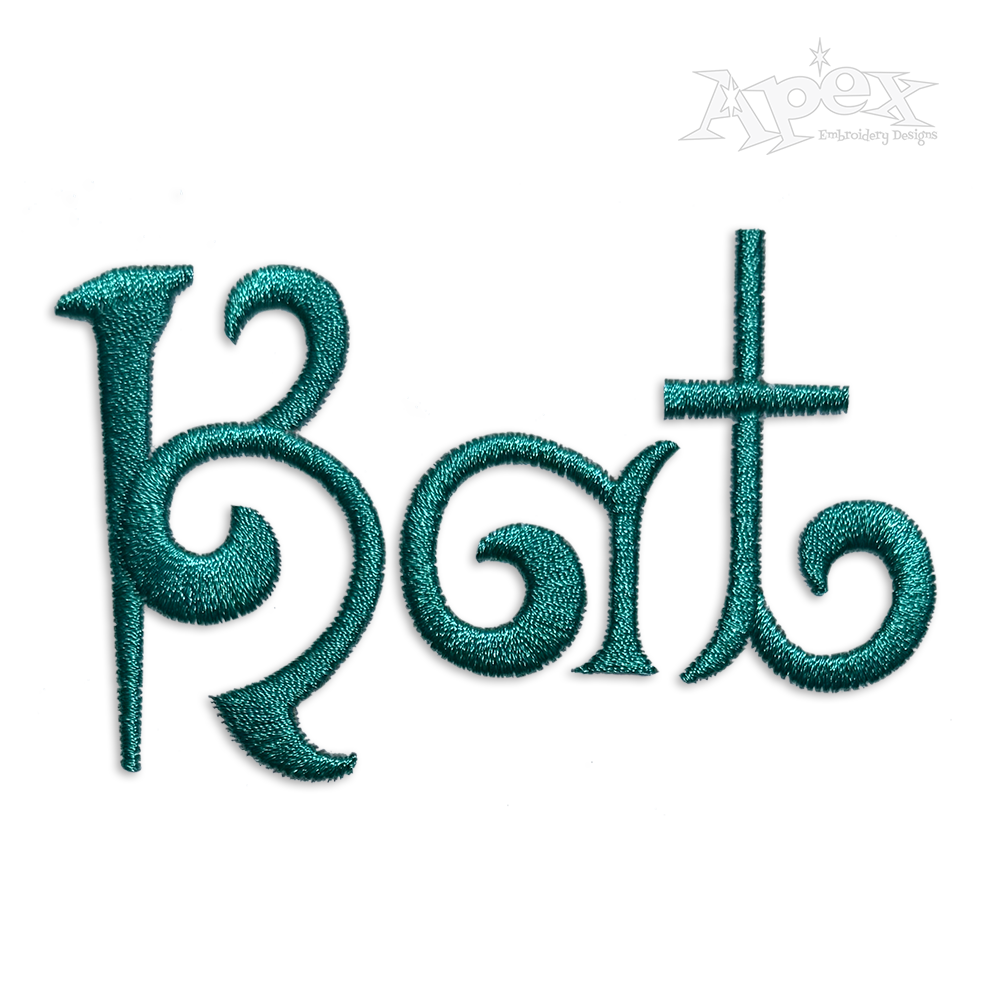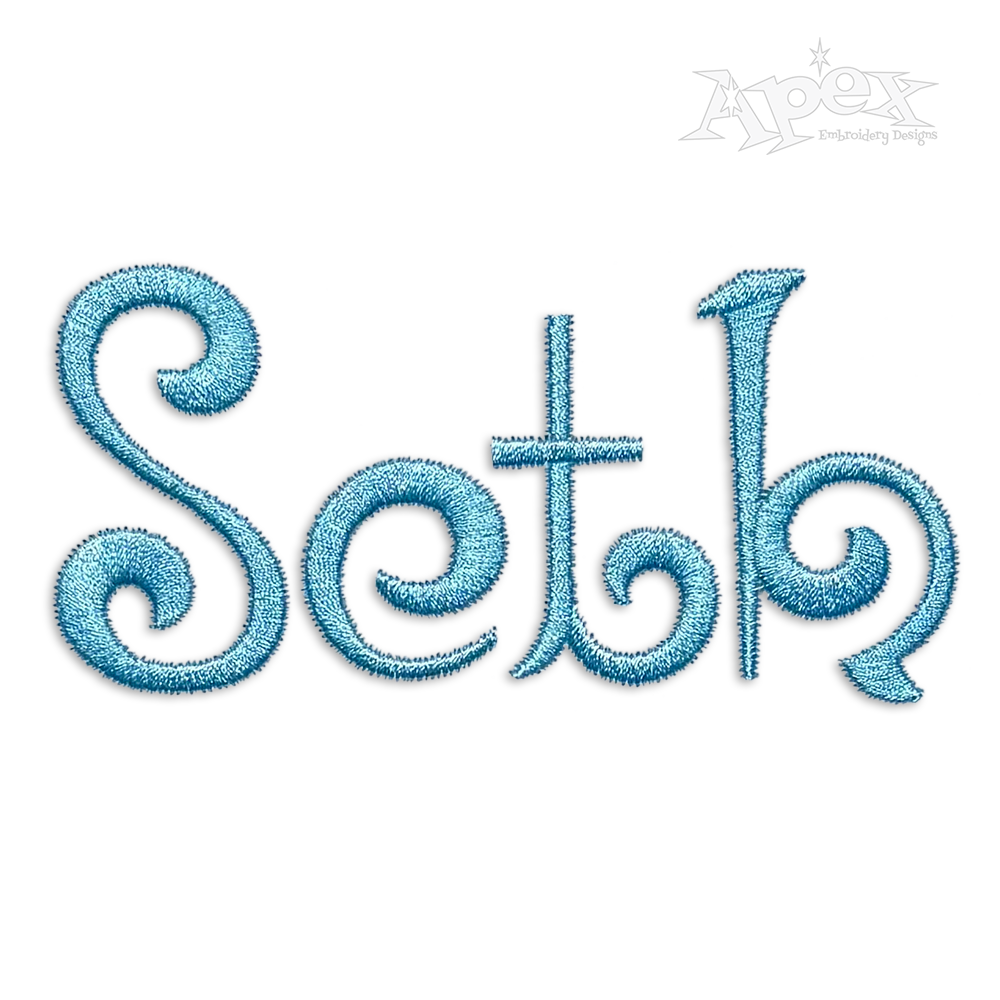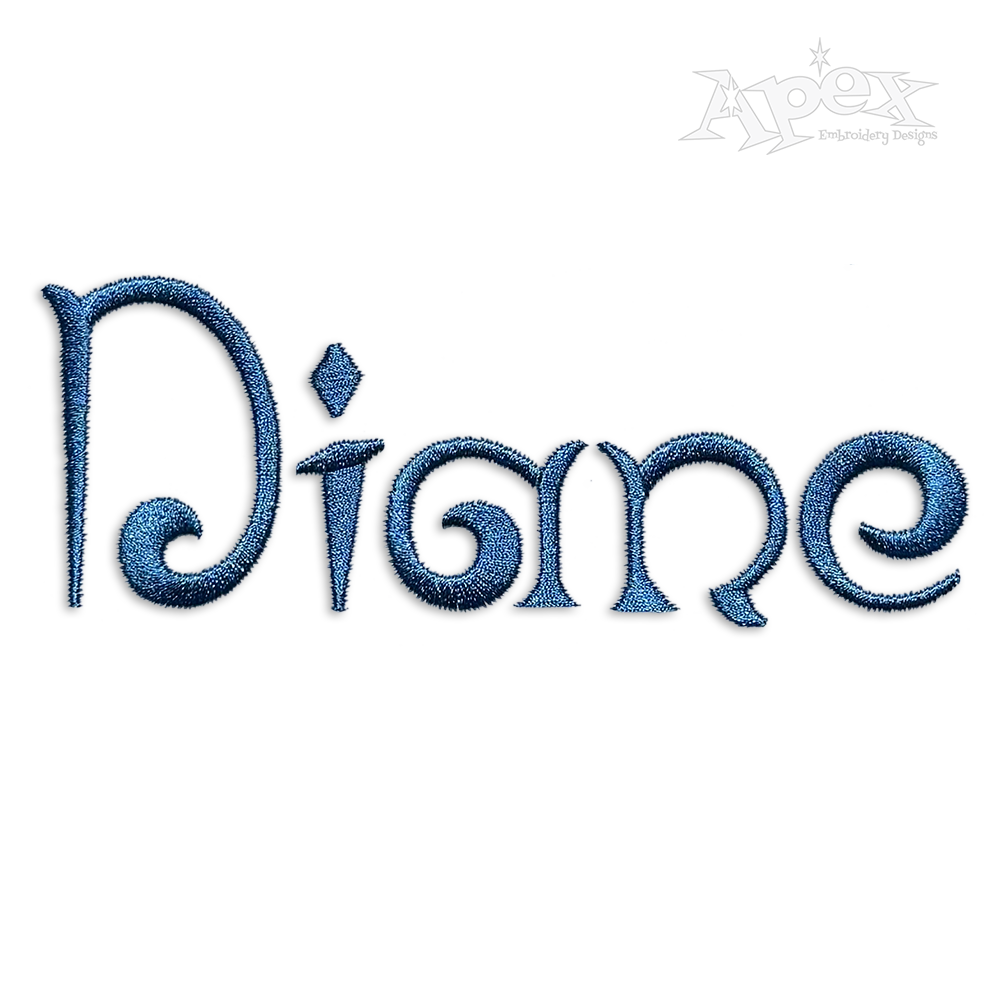
Waves Ocean Curlz Embroidery Font
Inspired by the rhythmic cadence of cresting tides and the joyful swirl of ocean seafoam, the Waves Ocean Curlz Embroidery Font infuses bespoke needlework with breezy coastal charm. When translating these spirited letterforms to stitches, our goal was to capture the fluid motion of rolling water while preserving crisp typographic legibility. Each character arcs, dips, and curls like an ocean swell, turning ordinary beach textiles, monogrammed linens, and personalized gifts into sun-drenched keepsakes alive with movement and artisan flair.
This collection has been digitized specifically for versatile machine embroidery projects, offering three thoughtfully scaled letter heights to accommodate both intimate accents and bold coastal statements:
- 1.00" Height: Refined and delicate, expertly proportioned for shirt cuffs, pocket tabs, baby apparel, and dainty cocktail napkin corners.
- 2.00" Height: The quintessential size for personalized gifts, heirloom hand towels, cosmetic travel bags, and custom pillow bands.
- 3.00" Height: A bold, expressive display size created to stand out beautifully on large canvas totes, bath sheets, beach blankets, and duvet covers.
Every size has been individually digitized from the ground up in pure satin stitch, ensuring immaculate density balance, fluid stitch paths, and flawless machine delivery across all standard hoop sizes.
Project Ideas for Waves Ocean Curlz Embroidery Font
The buoyant, maritime personality of this font naturally lends itself to coastal living, vacation wardrobes, and elevated warm-weather hospitality:
- Luxury Table Linens: Stitch playful, custom monograms on crisp white linen cocktail napkins or hemstitched table runners for seaside dinner parties and yacht club gatherings.
- Bespoke Resort Wear: Personalize the pockets of breathable linen button-downs, sun hats, swimwear cover-ups, and terrycloth spa wraps.
- Coastal Gifting: Create unforgettable heirloom gifts for destination weddings, beach house warmings, or bridal shower party robes.
- Canvas Totes & Beach Gear: Embellish heavy-duty nautical carryalls, zip pouches, and poolside duffels with vibrant, eye-catching initials.
- Seaside Nursery Accents: Bring a gentle, whimsical touch to baby swaddles, ocean-themed bibs, and commemorative birth announcement pillows.
To maximize the graceful, wave-like curves of this alphabet, consider these proven artisan placements:
- Corner Diagonal Placement: Angle a single-letter or three-letter monogram across the corner of hemstitched napkins or linen guest towels, leaving a 1.5-inch border from the edge for a balanced, airy frame.
- Center Chest & Pocket Tops: For lightweight resort shirts and loungewear, center the 1-inch or 2-inch lettering squarely above the pocket seam or across the left chest to highlight the font's sculpted curls.
- Centered Band Alignments: On plush velour or terry beach towels, embroider the 3-inch set centered along the smooth woven decorative band, allowing the dimensional satin stitches to catch natural sunlight.
- Off-Center Modern Accent: Position a bold initial toward the lower right corner of canvas pouches or throw pillows for a contemporary, relaxed coastal aesthetic.
Waves Ocean Curlz Embroidery Font Craft & Letterform Details
Digitizing a font inspired by the sea requires a master balance between organic fluidity and structural discipline. Every stroke of the Waves Ocean Curlz Embroidery Font features carefully calculated satin stitch angles that flow around bends like water moving through an inlet. As thread shifts across each sweeping curve and curled flourish, it refracts light with a lustrous sheen, giving the finished embroidery the visual depth of rippling water.
We paid extraordinary attention to the column widths and terminal curls. Rather than allowing tight turns to bunch or pinch, each junction is layered with purposeful stitch gradations and secure underlay architecture. This firm foundation lifts the top satin columns above high-pile fabrics like terrycloth and keeps stitches crisp on textured, open-weave linens. The result is a resilient, ultra-smooth satin stitch alphabet that stitches with whisper-quiet consistency and washes with enduring beauty.